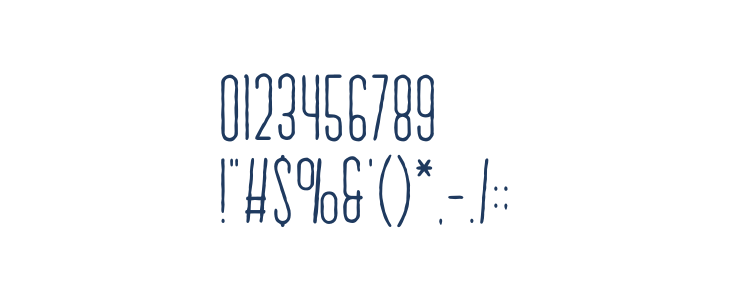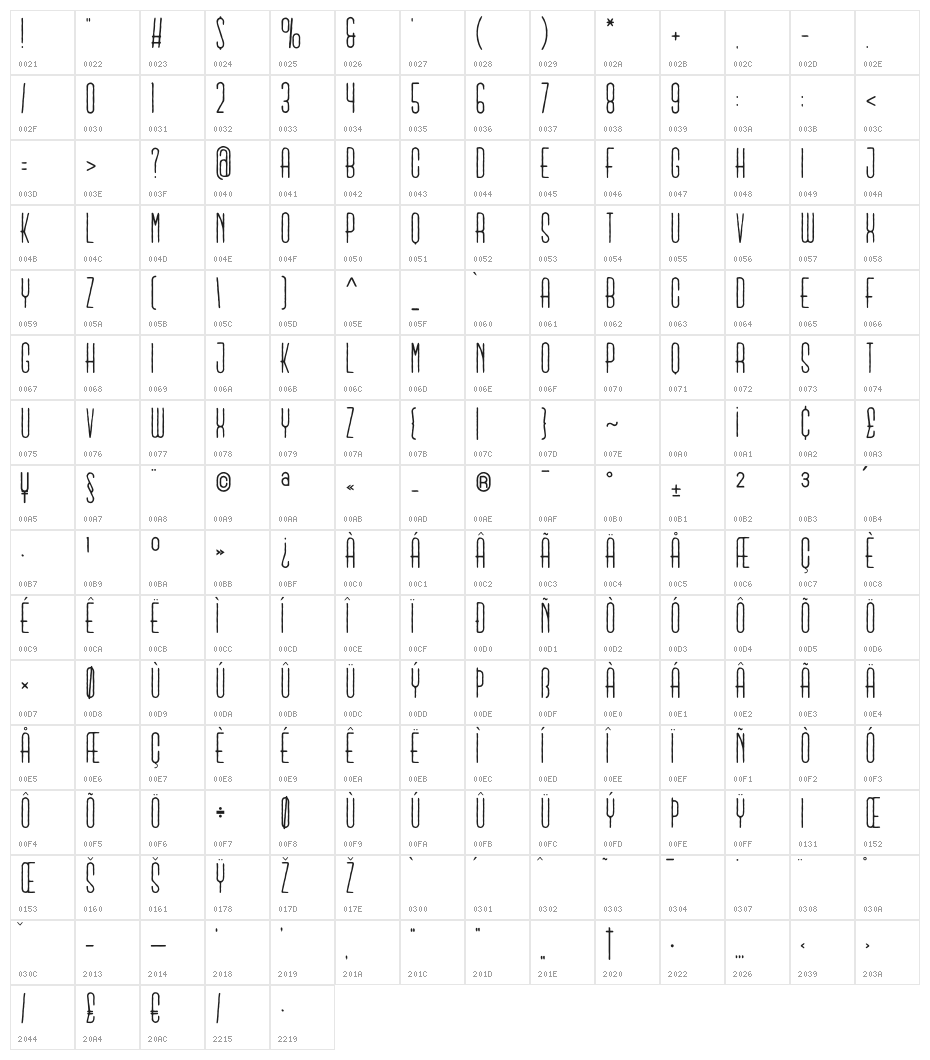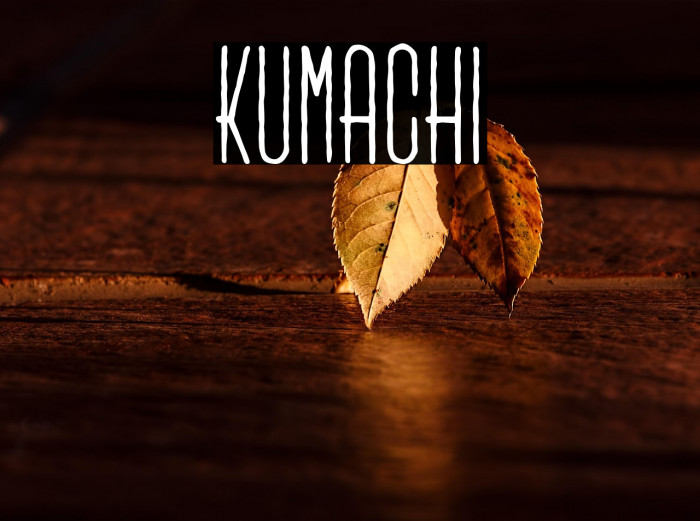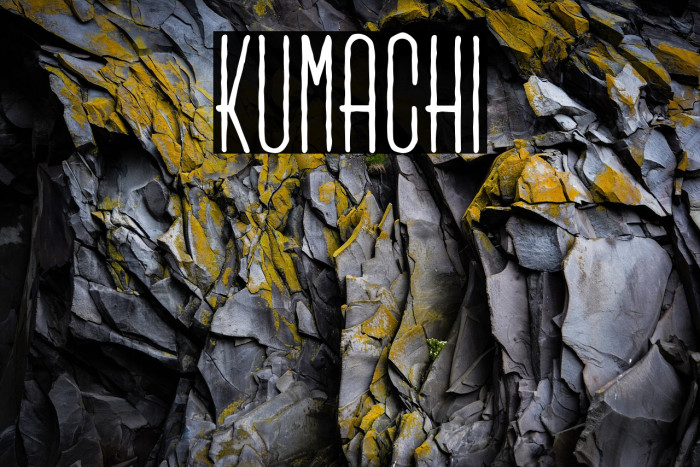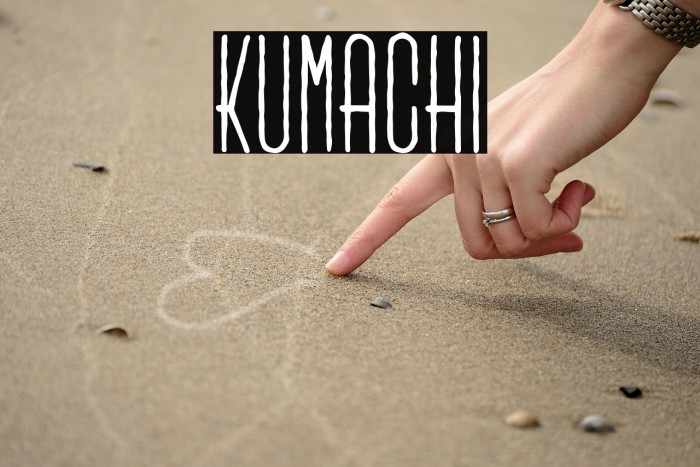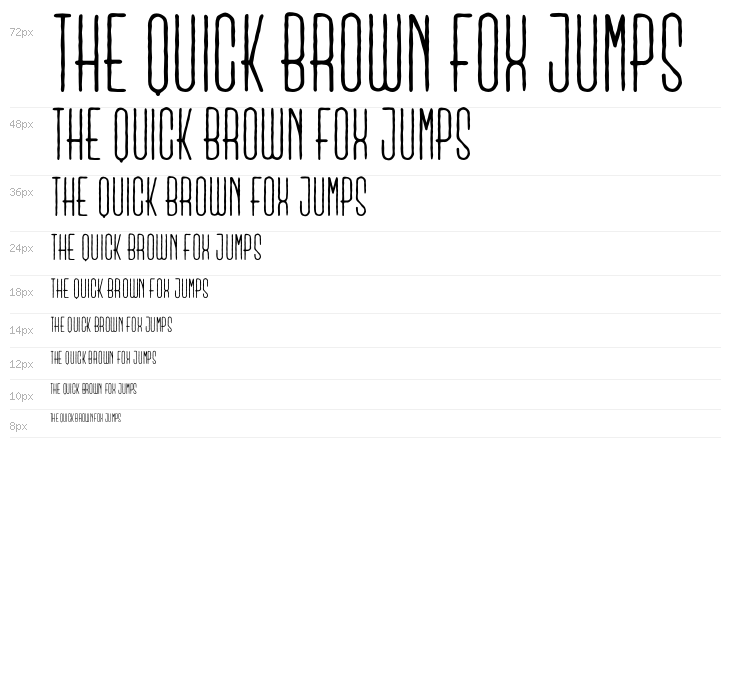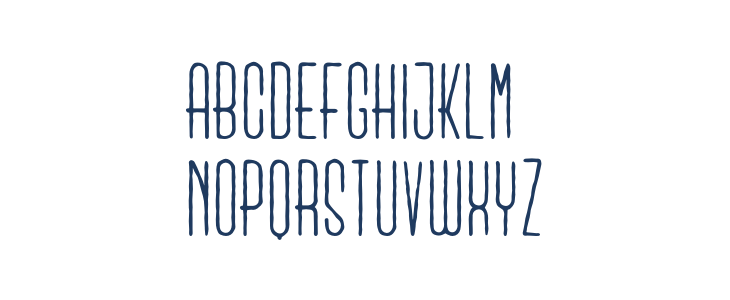
Kumachi Font
Kumachi Description
This font features a unique, hand-drawn aesthetic with elongated, narrow characters that give it a distinct and artistic appearance. The strokes are uneven, adding a textured, organic feel that suggests a handcrafted style. The uppercase and lowercase letters maintain a consistent height, contributing to a uniform look across text. Numbers and special characters follow the same design principles, ensuring cohesion throughout. The overall impression is one of creativity and individuality, making it suitable for projects that require a personal touch.
| Overall Style | Artistic, Handcrafted |
| Use Case | Logos, Posters, Invitations |
| Proposed Projects | Ideal for artistic projects, branding, posters, and invitations where a personal, handcrafted touch is desired. |